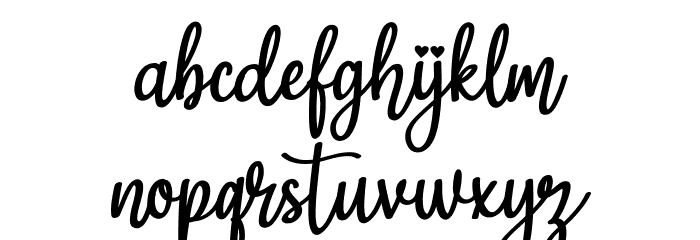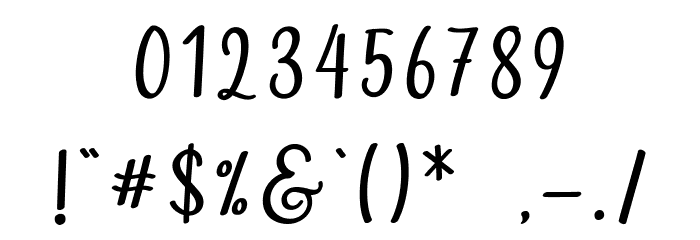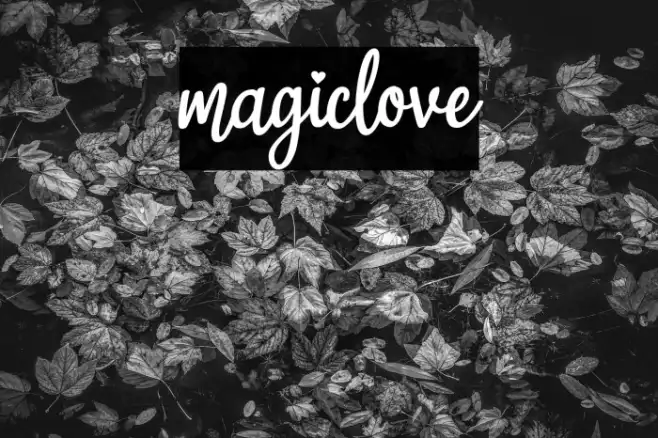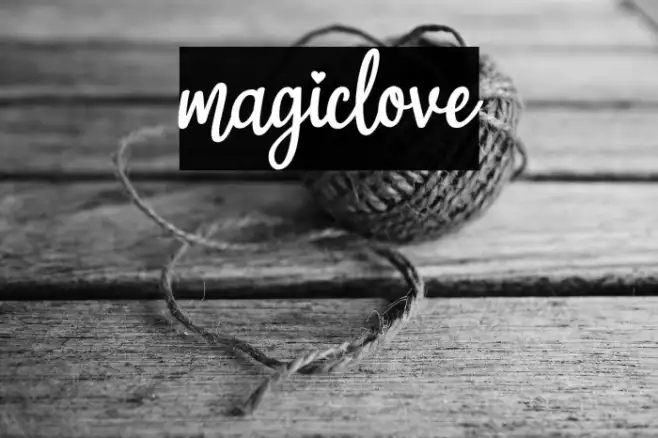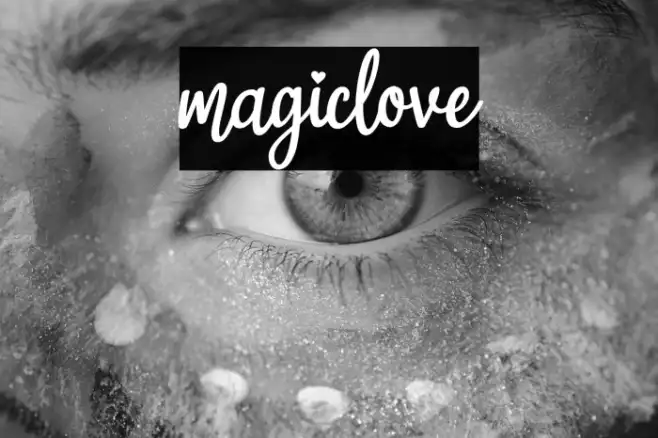
magiclove Font
This font features a playful and elegant script style, characterized by its fluid and connected letterforms. The uppercase letters are bold and expressive, with a slight slant that adds a dynamic feel. The lowercase letters maintain a consistent flow, enhancing readability while preserving the decorative nature. Numbers are clear and distinct, matching the overall style. Special characters are designed to complement the script, ensuring a cohesive look across all text elements. The font's strokes vary in thickness, providing a medium contrast that adds depth and interest without compromising legibility.
A playful and elegant script font with fluid, connected letterforms and medium contrast.
- Proposed Projects: Ideal for wedding invitations, greeting cards, branding projects, and social media graphics.
- Use Case: Logos, Headlines, Invitations